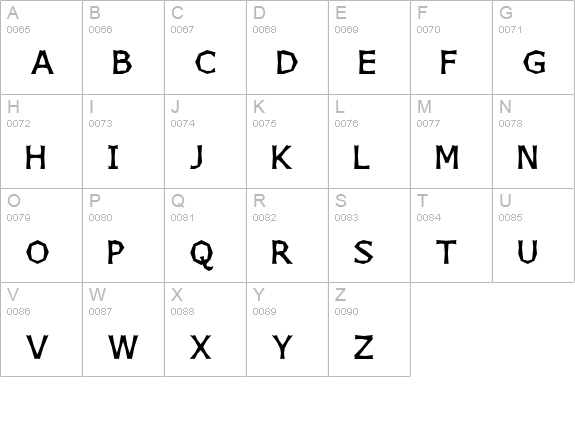
Chizzler SemiBold Font Details
Chizzler SemiBold is a sub-bold, structured variant in the Chizzler typeface family \xE2\x80\x94 well suited to sub-headlines and emphasised passages.
Introducing Chizzler SemiBold font, a modern and versatile typeface that exudes sophistication and style. With its bold and striking appearance, Chizzler SemiBold is perfect for making a statement in your design projects. The clean lines and sharp edges of this font give it a contemporary and edgy look, making it ideal for headlines, logos, and branding materials. What sets Chizzler SemiBold font apart is its unique character and personality, making it a standout choice for any creative endeavor. Whether you're designing a poster, website, or packaging, Chizzler SemiBold will add a touch of elegance and flair to your work. And the best part? Chizzler SemiBold font is available for free download at FontsMarket.com. Now you can enhance your designs with this stunning typeface without breaking the bank. Don't miss out on the opportunity to elevate your projects with Chizzler SemiBold font - download it today and let your creativity shine!